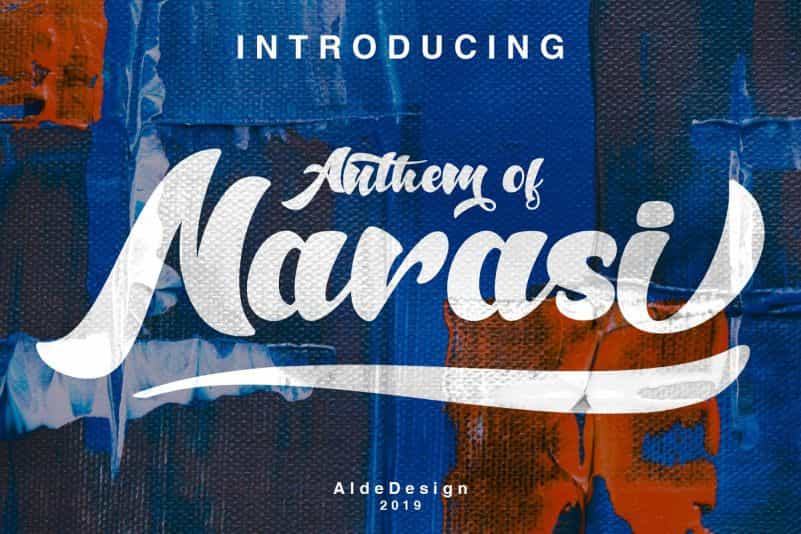
Discover Anthem of Narasi Script Font, part of the Calligraphy collection—a versatile and unique font perfect for adding a personal touch to your projects. Download it for free and enjoy crafting designs with style, from invitations to social media posts. This font is available exclusively for personal use, giving you the freedom to create without limits. Unlock your creativity with Anthem of Narasi Script Font today!
Introducing Anthem of Narasi Font. Anthem of Narasi – Nice Bold Font – A stylish new bold script. Anthem of Narashi was built with OpenType features and includes beginning and ending swashes, numbers, punctuation, alternates, ligatures, and it also supports other languages.